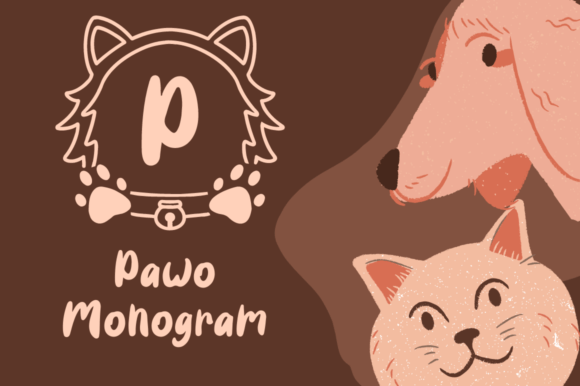
Welcome to the world of Pawo Monogram, a font family that's not just letters on a page, but a gateway to a world of creative expression and fun. Inspired by the untamed spirit of animals, Pawo Monogram is a decorative font that will transform your designs into a visual symphony of cuteness and charm.
Crafted with meticulous attention to detail by attypestudio, Pawo Monogram is an animal-themed monogram font that will ignite your imagination and captivate your audience. Whether you're a seasoned designer or a crafting enthusiast, this font will elevate your projects to new heights of adorableness.
With Pawo Monogram, you'll discover a world of possibilities, from personalizing cups with Cricut to creating whimsical logos, branding that exudes warmth and charm, social media posts that pop with personality, and wedding cards that celebrate love in a unique and unforgettable way.
The secret behind Pawo Monogram's magic lies in its dual nature. With a simple switch between uppercase and lowercase, you'll unveil a treasure trove of distinct styles, each adding its own unique flavor to your creations. From playful and whimsical to elegant and sophisticated, the possibilities are endless.
Imagine your designs adorned with adorable animal motifs, each stroke of the pen a testament to your creativity and passion. Your customers will be captivated by the intricate details and the heartwarming charm that Pawo Monogram brings to every project.
So, embark on this extraordinary journey with Pawo Monogram, where the ordinary becomes extraordinary, and let your imagination run wild. Embrace the boundless possibilities and transform your designs into masterpieces that radiate joy and leave a lasting impression on everyone who encounters them.